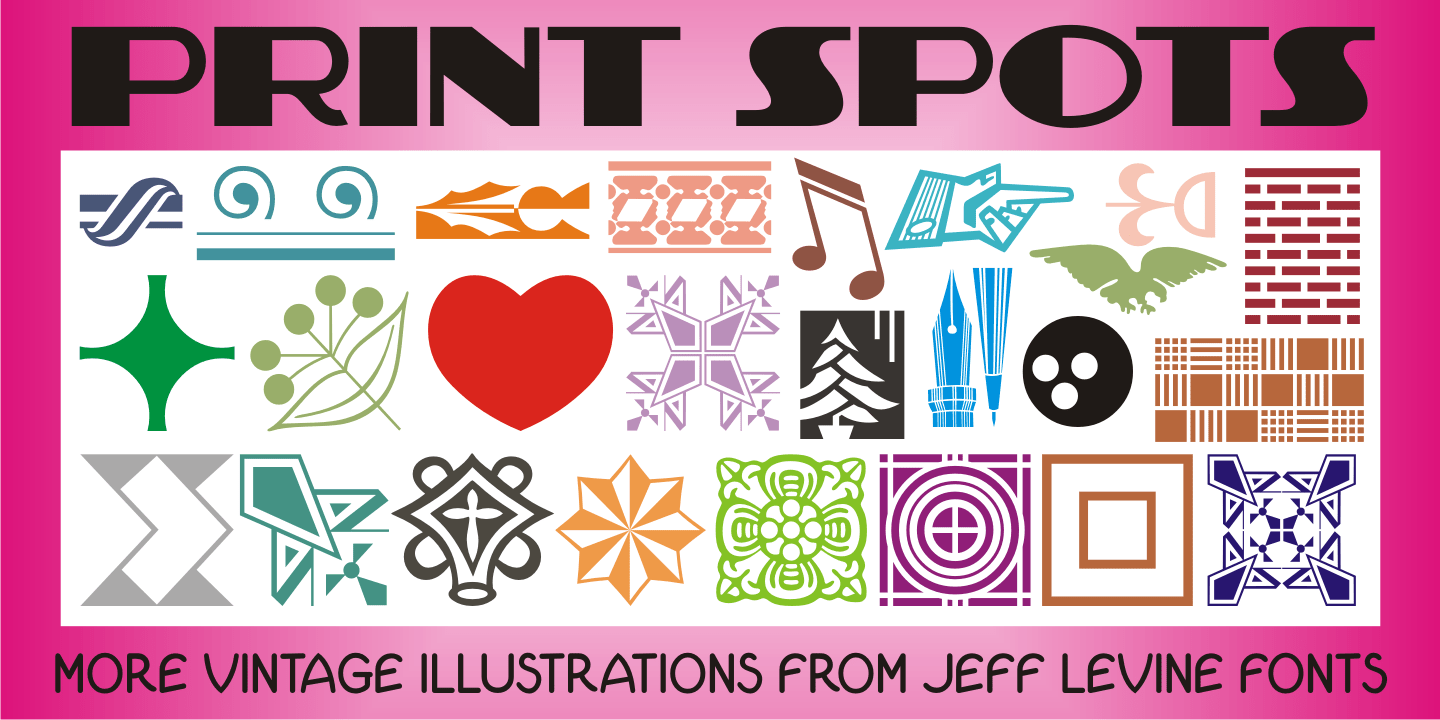
Print Spots
Print Spots JNL once again gathers together various and sundry vintage letterpress ornaments, embellishments, borders and spot illustrations from various sources.